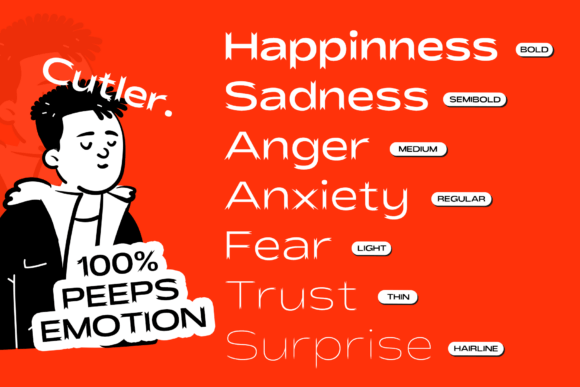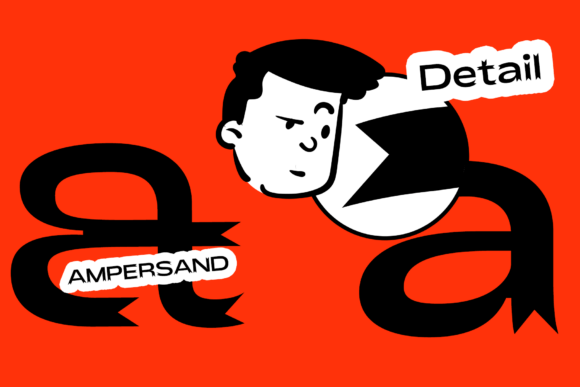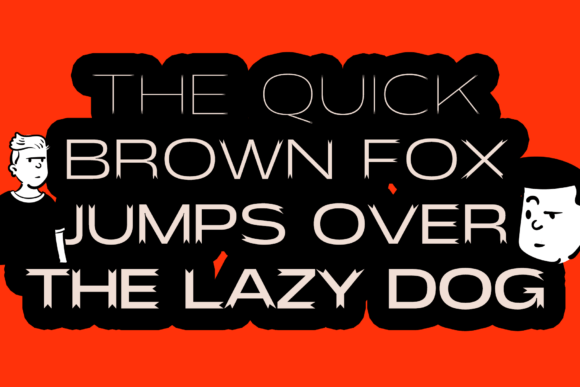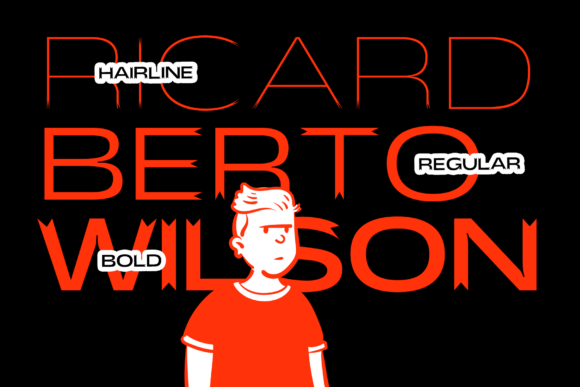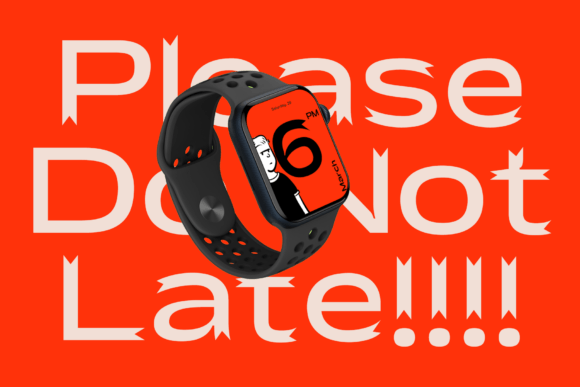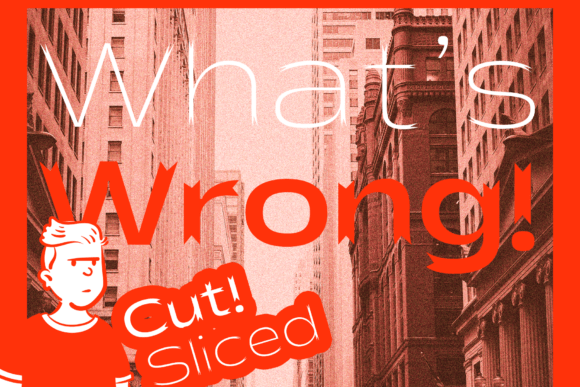
Discover the Bold and Unique Cutler Font: Elevate Your Designs with Precision and Style
In the world of typography, fonts play a crucial role in conveying messages, expressing creativity, and capturing the essence of a brand. Among the numerous fonts available, Cutler Sans stands out as a modern display sans-serif font that embodies the perfect blend of uniqueness, boldness, and precision. Inspired by the sharp cuts of scissors slicing through paper, Cutler Sans brings a fresh perspective to the realm of typography, making it an ideal choice for designers and crafters seeking to make a statement.
The Inspiration Behind Cutler Sans
Cutler Sans draws its inspiration from the precision of cut paper, where each stem features a sharply angled end, reminiscent of scissors gliding through paper with ease. This distinctive detail infuses the letters with a dynamic, crafted feel, creating a clean yet character-rich aesthetic that sets it apart from conventional sans-serifs. The result is a font that exudes a sense of modernity, sophistication, and attention to detail.
Key Features of Cutler Sans
Cutler Sans boasts a range of features that make it an attractive choice for various design applications:
- 7 Weights: From the light and elegant Hairline to the strong, eye-catching Bold, Cutler Sans offers a versatile range of weights to cater to diverse design needs.
- Unique Stems: The sharply angled ends of each stem add a touch of dynamism and sophistication to the letters.
- Legibility: Carefully developed for optimal clarity, Cutler Sans performs exceptionally well both on-screen and in print.
- Modern Aesthetic: Cutler Sans is designed to bring a modern, daring aesthetic to various applications, including logos, magazine headlines, posters, and product branding.
Applications of Cutler Sans
Cutler Sans is an incredibly versatile font, suitable for a wide range of design applications:
- Logo Design: Create a lasting impression with a bold, eye-catching logo that showcases your brand’s personality.
- Magazine Headlines: Add a touch of sophistication and modernity to your magazine headlines, grabbing readers’ attention and setting the tone for your content.
- Poster Design: Make a statement with Cutler Sans, using its bold weights to create visually impactful posters that demand attention.
- Product Branding: Elevate your product branding with a font that exudes modernity, sophistication, and attention to detail.
Why Choose Cutler Sans?
Cutler Sans offers a unique combination of characteristics that make it an attractive choice for designers and crafters:
- Unique Style: Cutler Sans brings a fresh perspective to typography, offering a distinctive style that sets it apart from more traditional fonts.
- Versatility: With 7 weights to choose from, Cutler Sans can be adapted to suit a wide range of design needs, from minimalist and refined to visually impactful.
- Legibility: Cutler Sans is designed for optimal clarity, ensuring that your message is conveyed with precision and style.
Cutler Sans is a modern display sans-serif font that embodies the perfect blend of uniqueness, boldness, and precision. Inspired by the sharp cuts of scissors slicing through paper, Cutler Sans brings a fresh perspective to typography, making it an ideal choice for designers and crafters seeking to make a statement. With its versatile range of weights, unique stems, and exceptional legibility, Cutler Sans is poised to elevate your designs and take your brand to the next level.
Whether you’re a designer, crafter, or simply someone who appreciates the art of typography, Cutler Sans is definitely worth exploring. Experience the bold and unique characteristics of Cutler Sans for yourself, and discover how this font can help you create stunning designs that capture attention and leave a lasting impression.